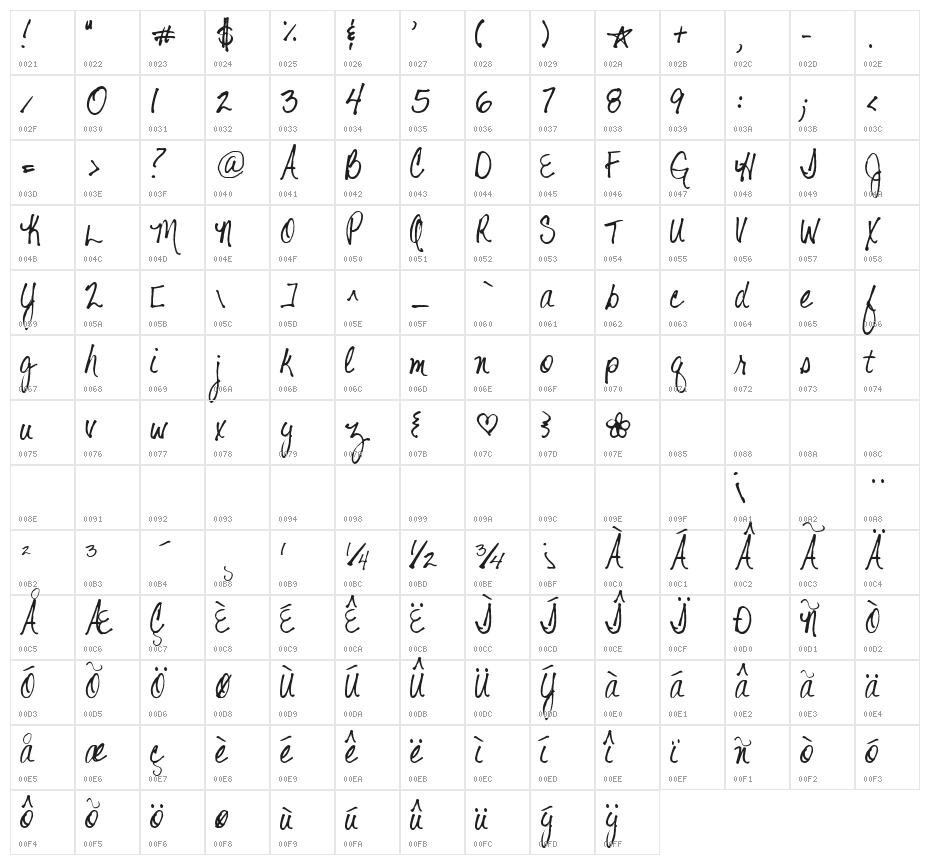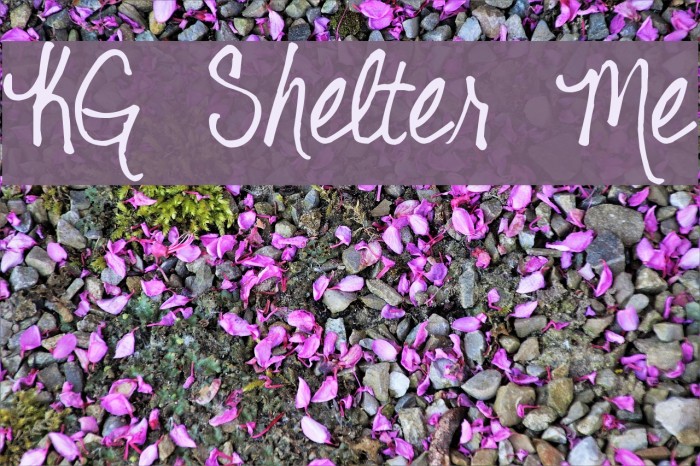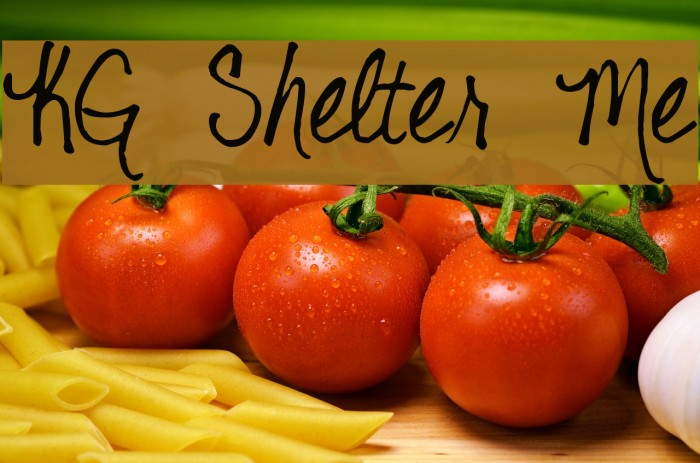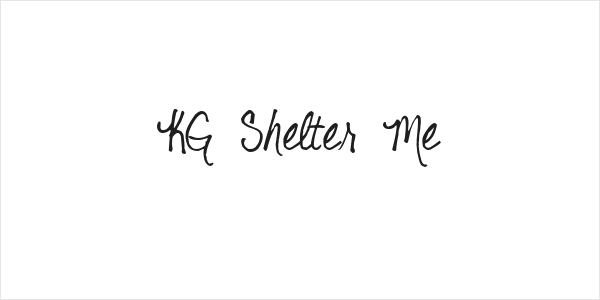
KG Shelter Me Font
KG Shelter Me Description
This font exhibits a playful and casual handwritten style, characterized by its irregular and dynamic strokes. The letters are slightly slanted, giving a sense of movement and spontaneity. The uppercase and lowercase letters maintain a consistent flow, with some letters featuring loops and swirls that add to the font's charm. The numbers and special characters are crafted with the same lively energy, ensuring a cohesive look across all glyphs. This font's informal and friendly appearance makes it suitable for projects that aim to convey warmth and approachability.
| Proposed Projects | Ideal for greeting cards, personal invitations, casual branding, and social media graphics. |